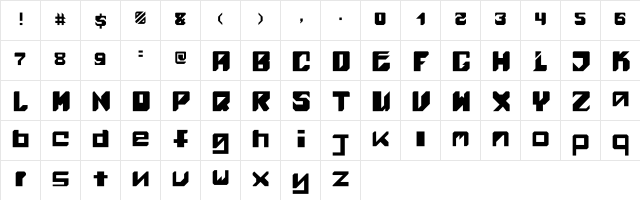
Never_Quit Regular
Design Context for Never_Quit Typeface
Never_Quit is a composed and adaptable typeface that performs quietly and consistently across a wide range of design contexts.